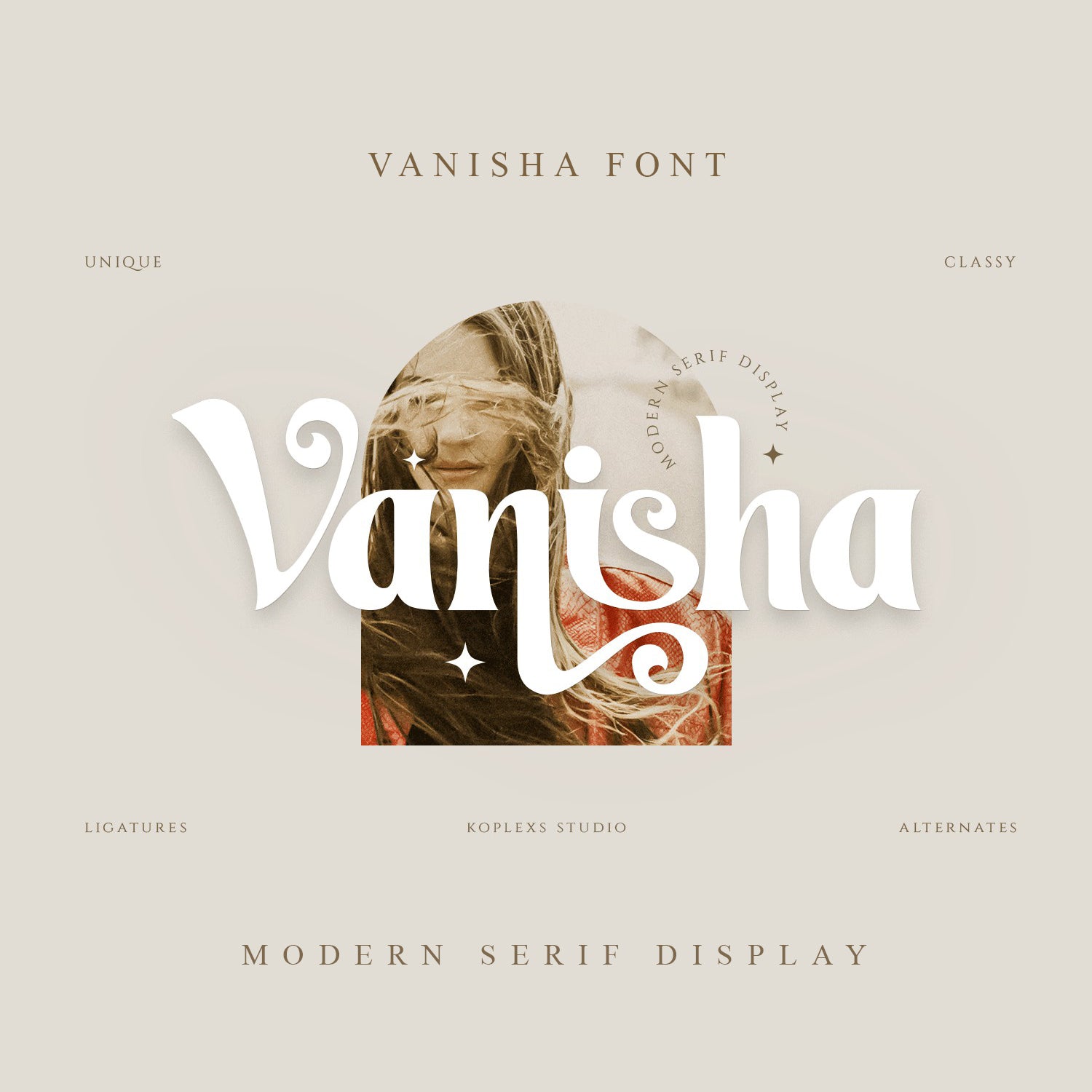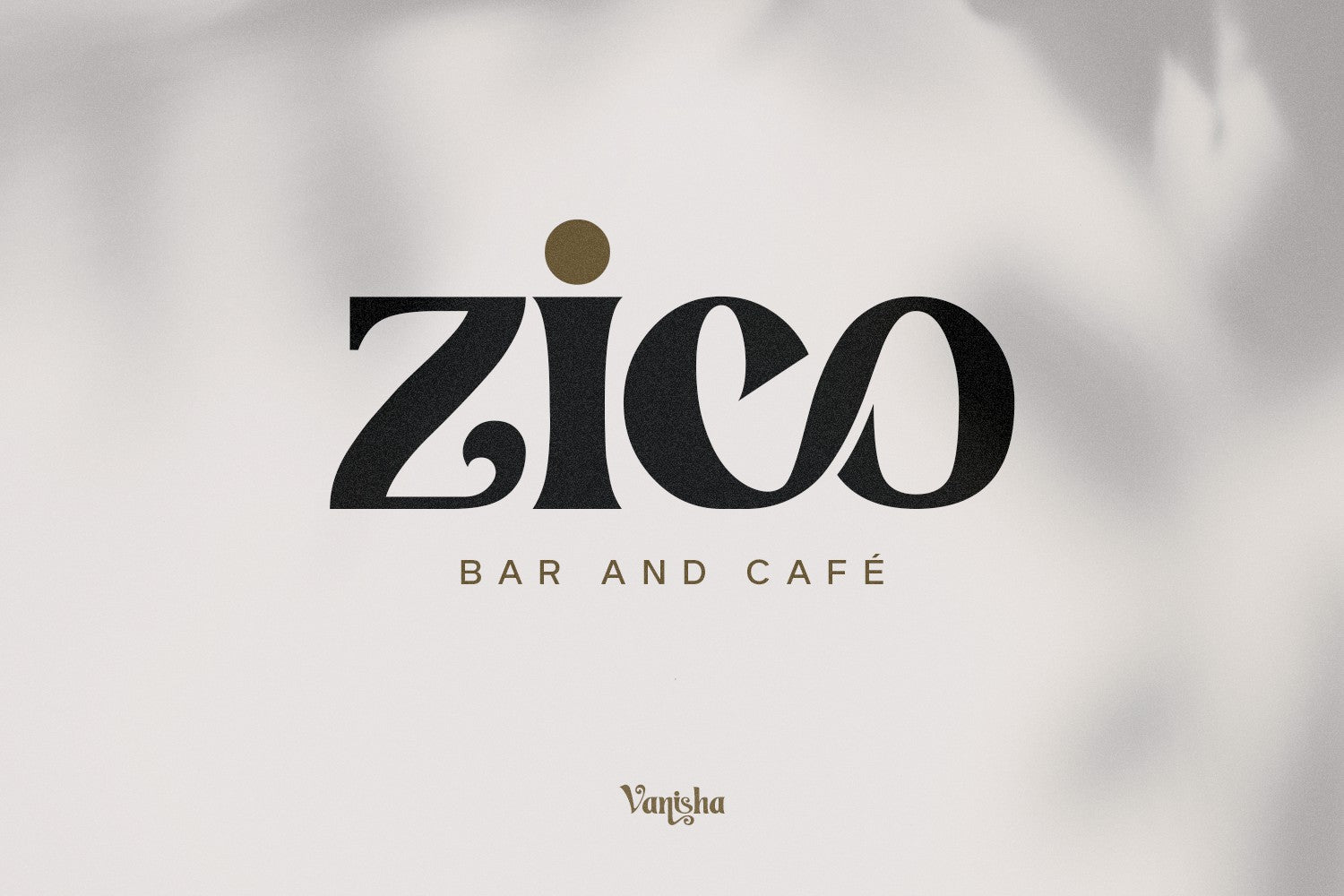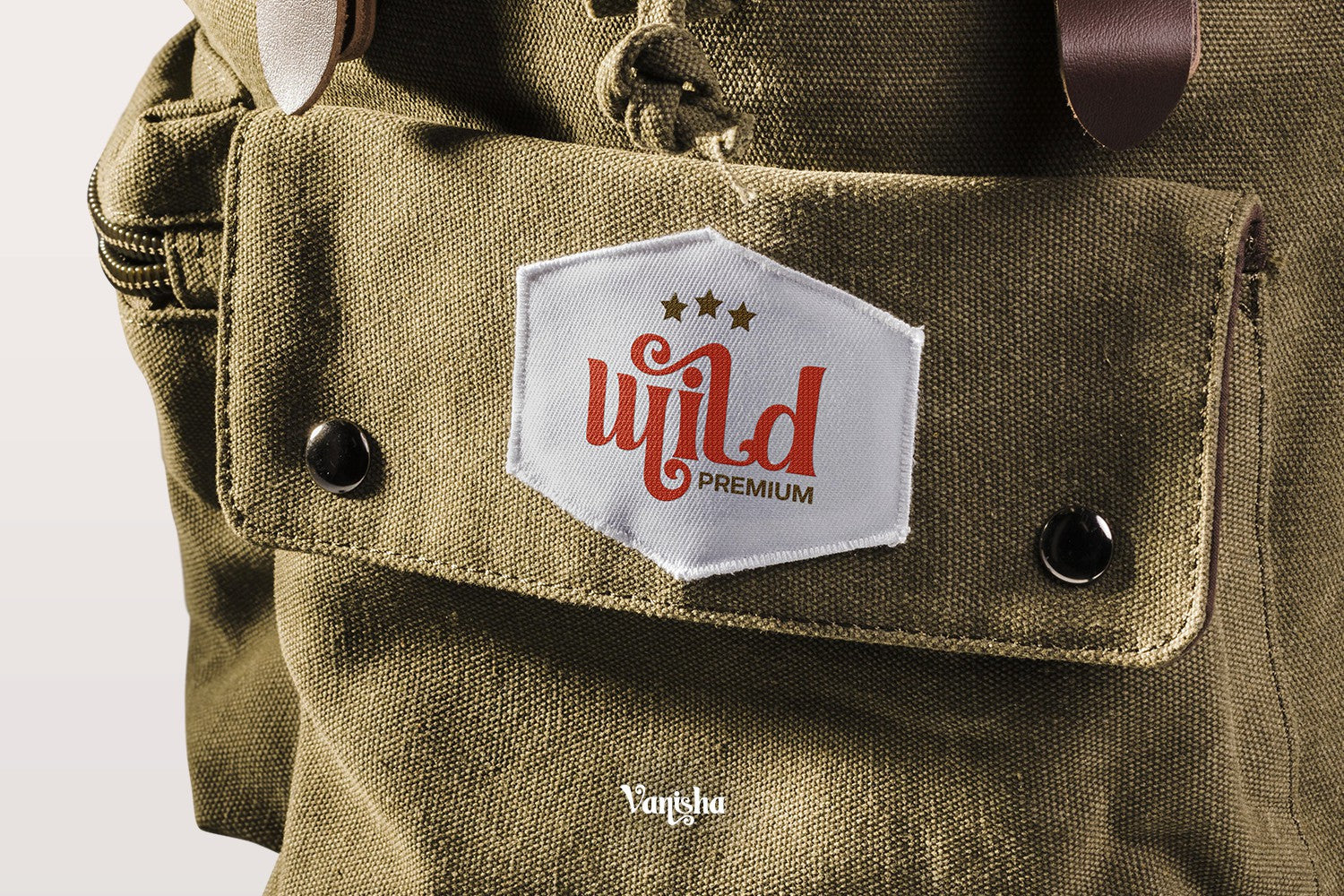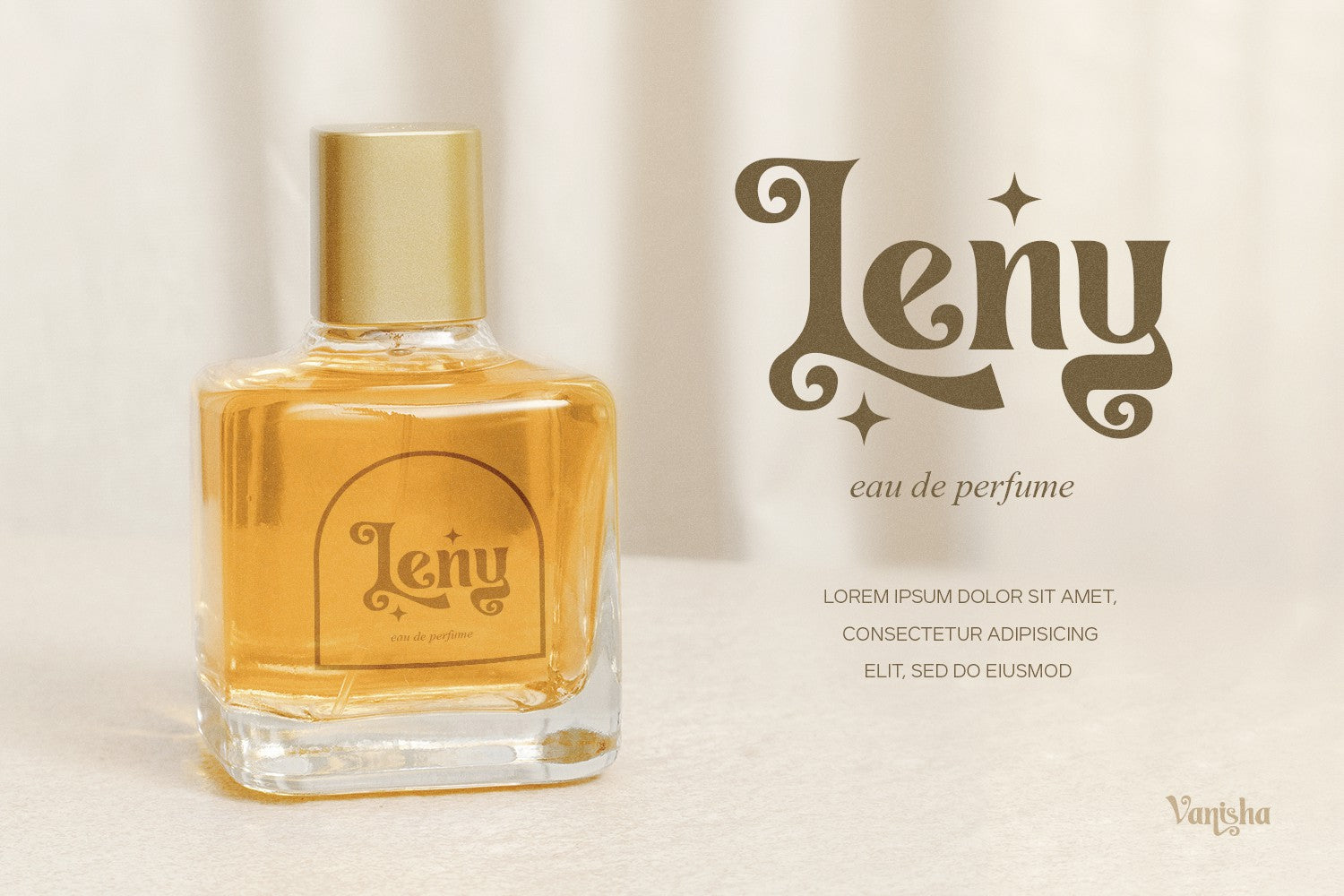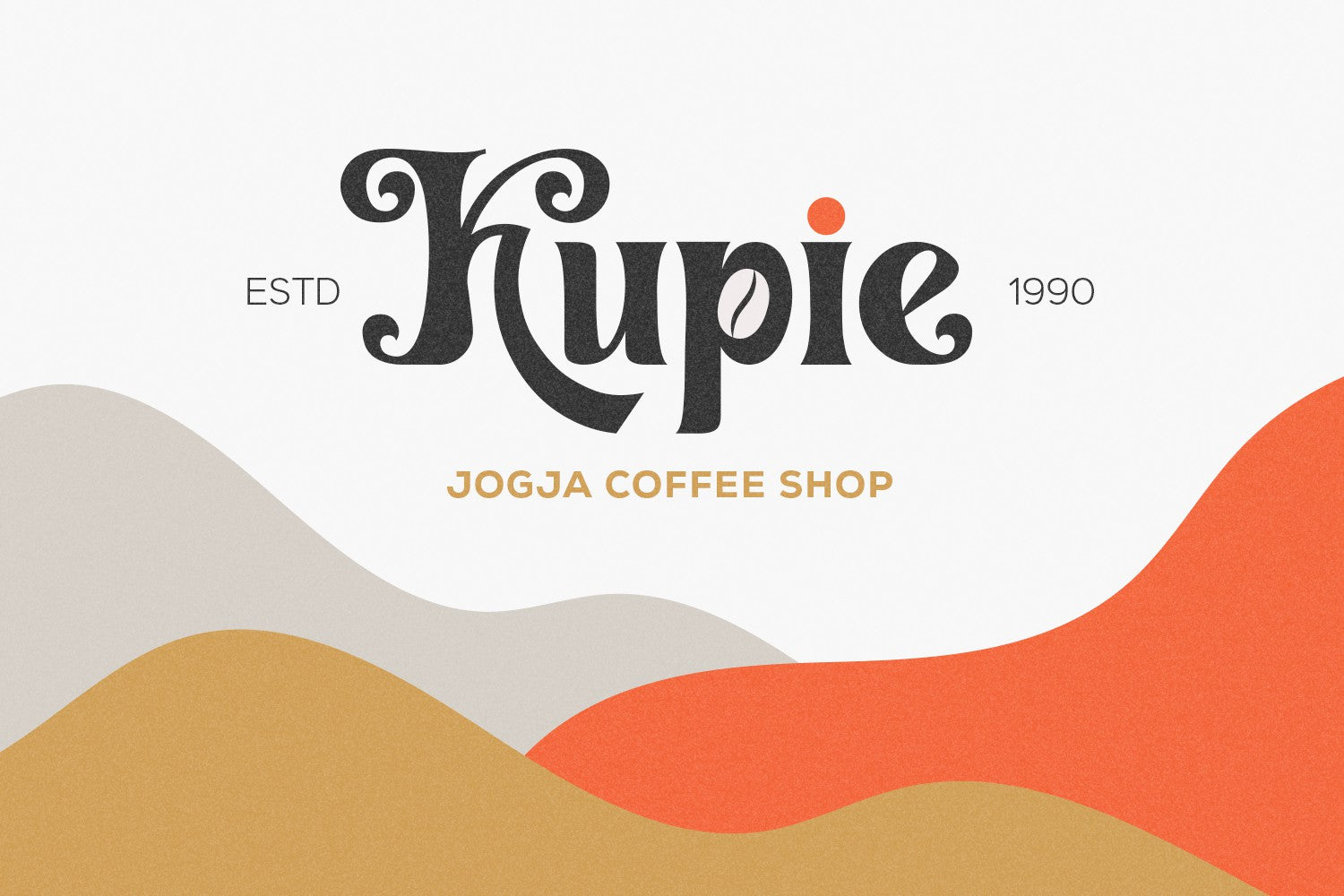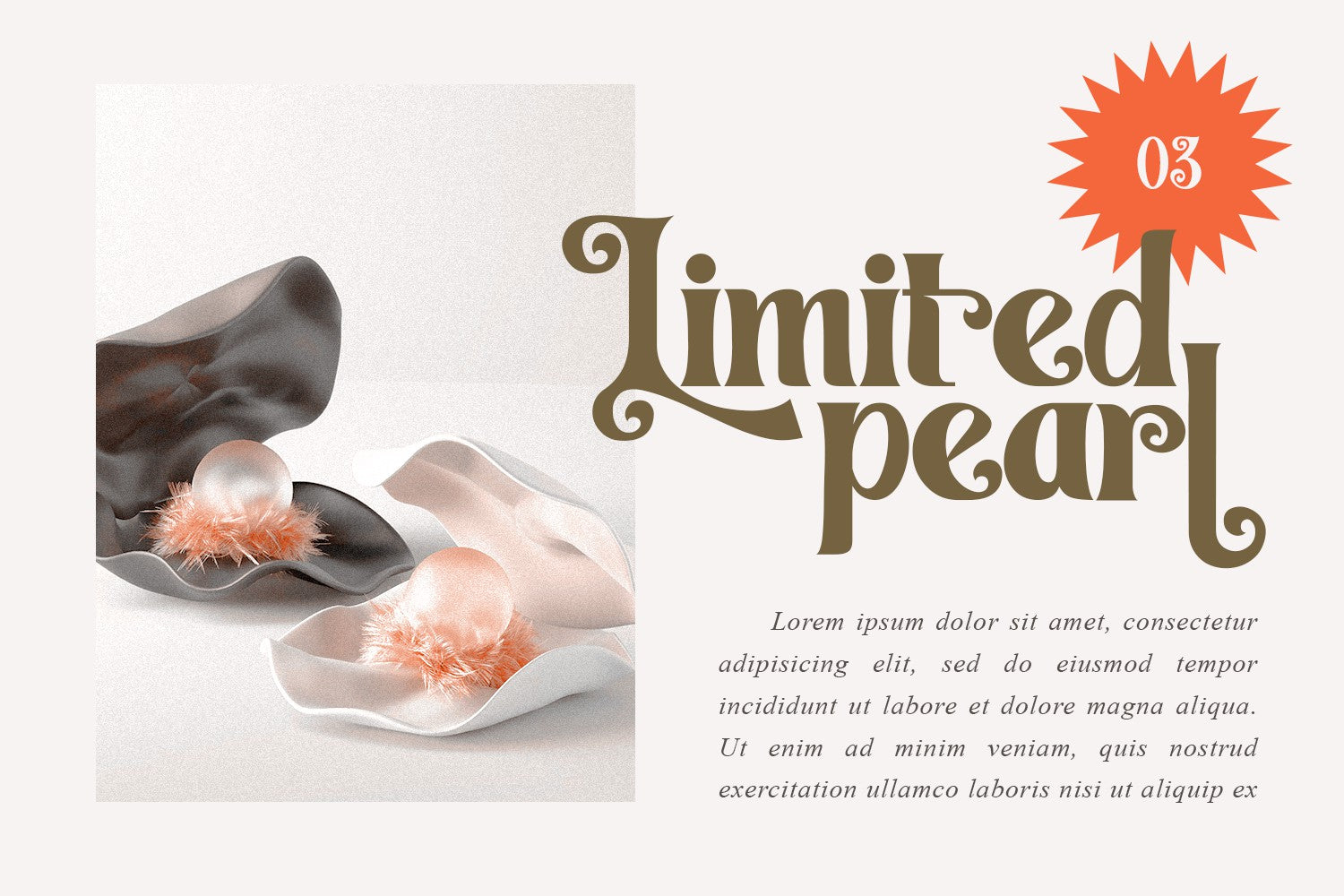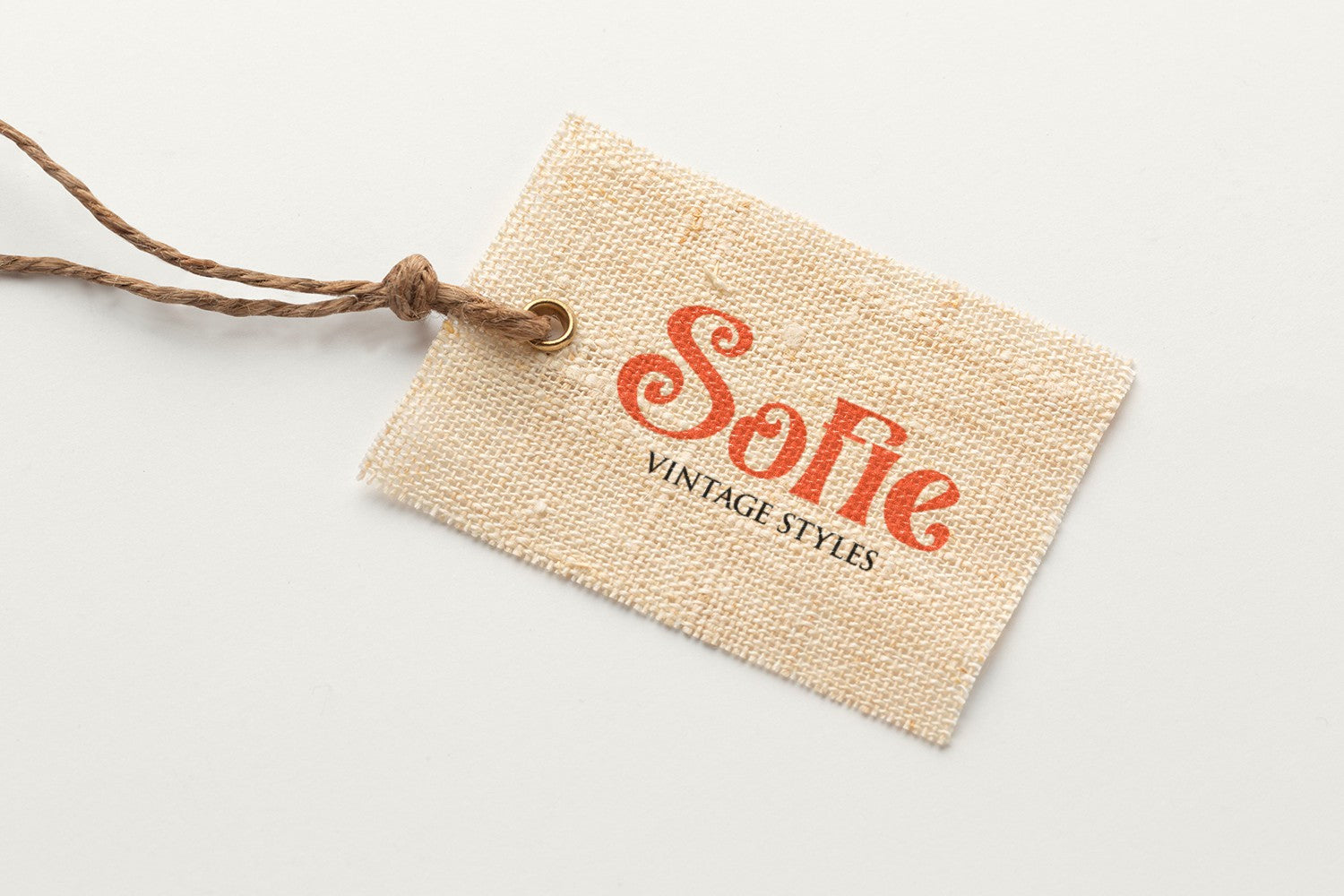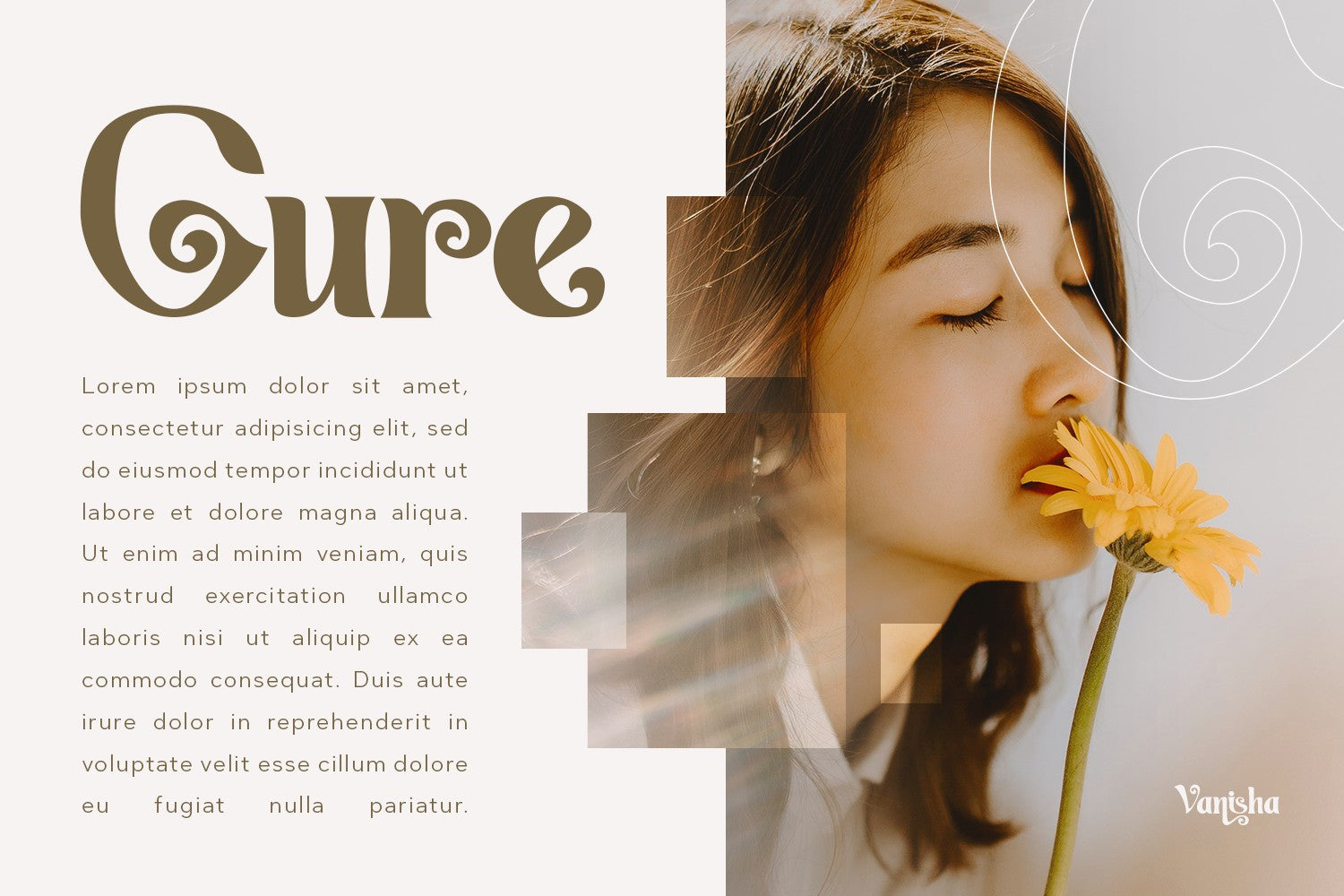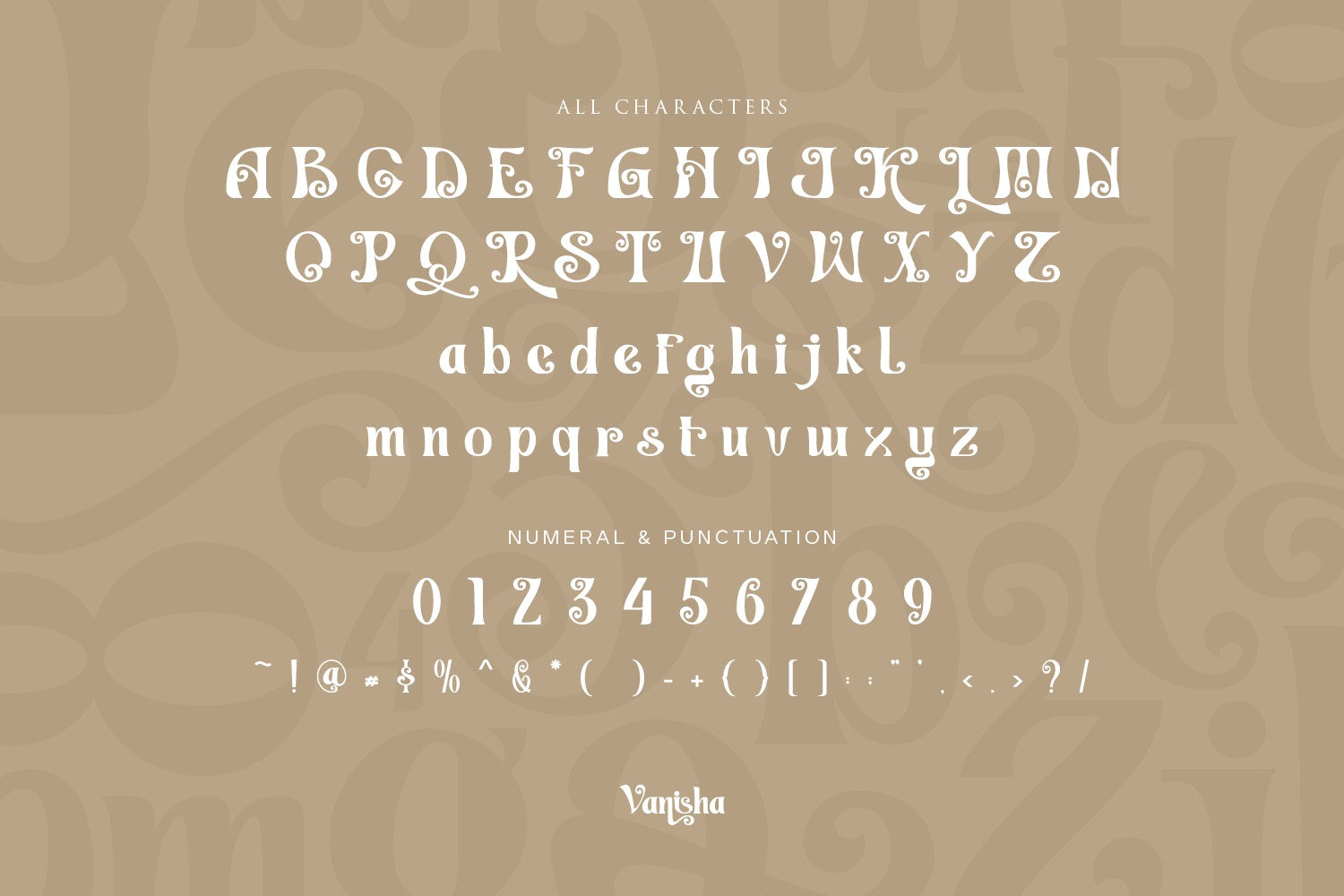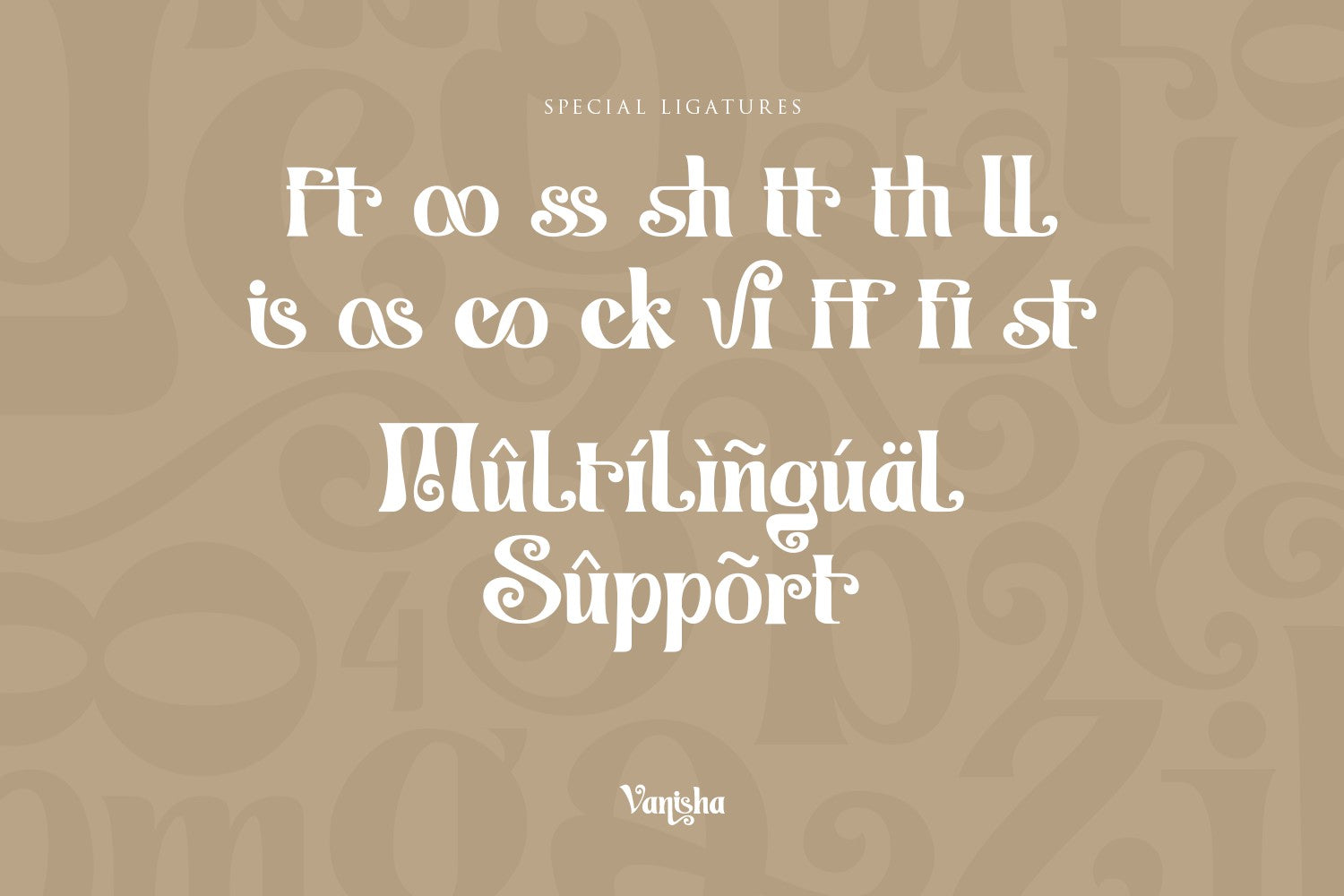
Vanisha Font
Vanisha Font is a premium modern serif display font designed to bring elegance, sophistication, and timeless beauty to creative projects. Featuring exquisite ligatures, stylish alternates, and distinctive Art Nouveau-inspired details, this typeface combines classic charm with a contemporary aesthetic. Its refined letterforms make it an ideal choice for designers seeking a luxurious and memorable visual identity.
Perfect for luxury branding, fashion logos, cosmetic packaging, perfume labels, wedding invitations, editorial headlines, magazine covers, posters, social media graphics, and premium marketing materials. Vanisha Font works beautifully as a logo font, branding font, headline font, heading font, cover font, and wedding font, helping brands create a strong and elegant presence.
Whether you're designing for beauty, fashion, jewelry, lifestyle, boutique businesses, or high-end products, Vanisha delivers a unique blend of sophistication and creativity. This versatile serif font is crafted to elevate branding projects with a luxurious, aesthetic, and professional look that stands out across both digital and print media.
Vanisha Font is a premium modern serif display font that features elegant ligatures, stylish alternates, and distinctive Art Nouveau-inspired details. Designed for luxury branding and versatile applications, it offers refined letterforms suitable for various creative projects.